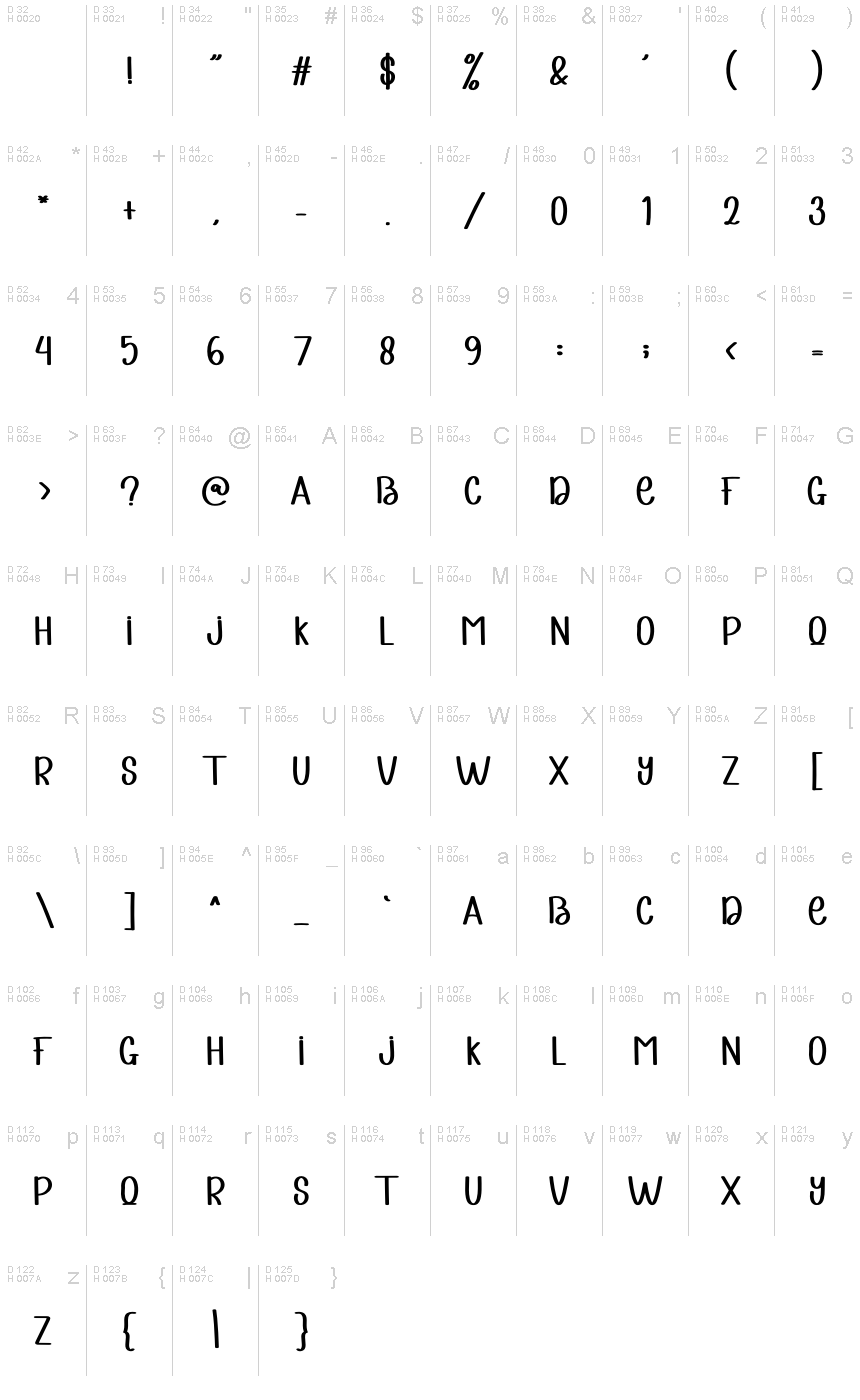
Cry Alone
Cry Alone, designed by Andi Moz, is a charming handwritten display font that exudes a sweet and friendly vibe. With its playful strokes and delightful ligatures, this font captures the essence of whimsy and joy, making it a captivating choice for design projects seeking a touch of personal flair.
The font's organic, hand-crafted appearance lends an inviting and approachable quality, making it well-suited for a variety of design applications. Cry Alone's versatility shines through, making it an excellent option for crafting wedding invitations, greeting cards, and other designs that require a personal, handwritten touch.